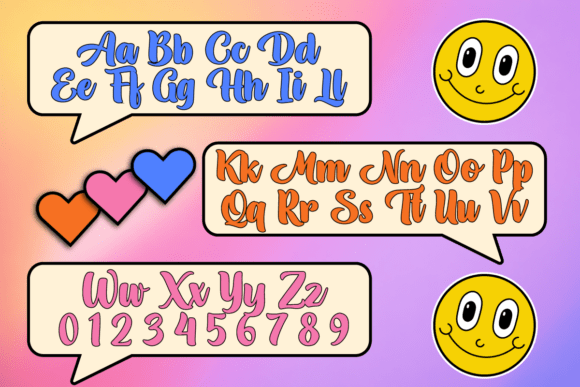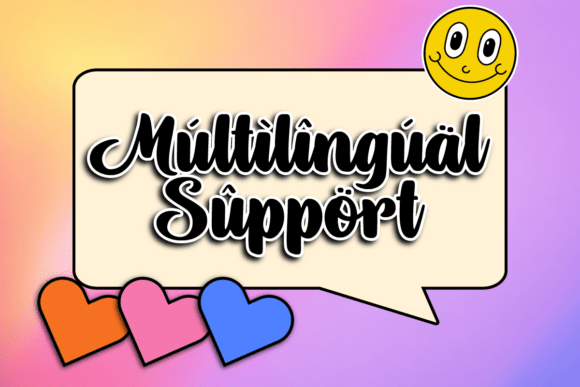
Introduction to Gatline Hanmoy Font
Gatline Hanmoy is a playful, bold script font designed to bring a cute, cheerful, and friendly feel to your designs.
With smooth curves and rounded letterforms, this font creates a fun and eye-catching visual style Step into a world of bold, expressive design with the Gatline Hanmoy font , a playful display typeface that perfectly captures the “Y2K” and “Neo-Retro” aesthetic.
Key Features of Gatline Hanmoy Font